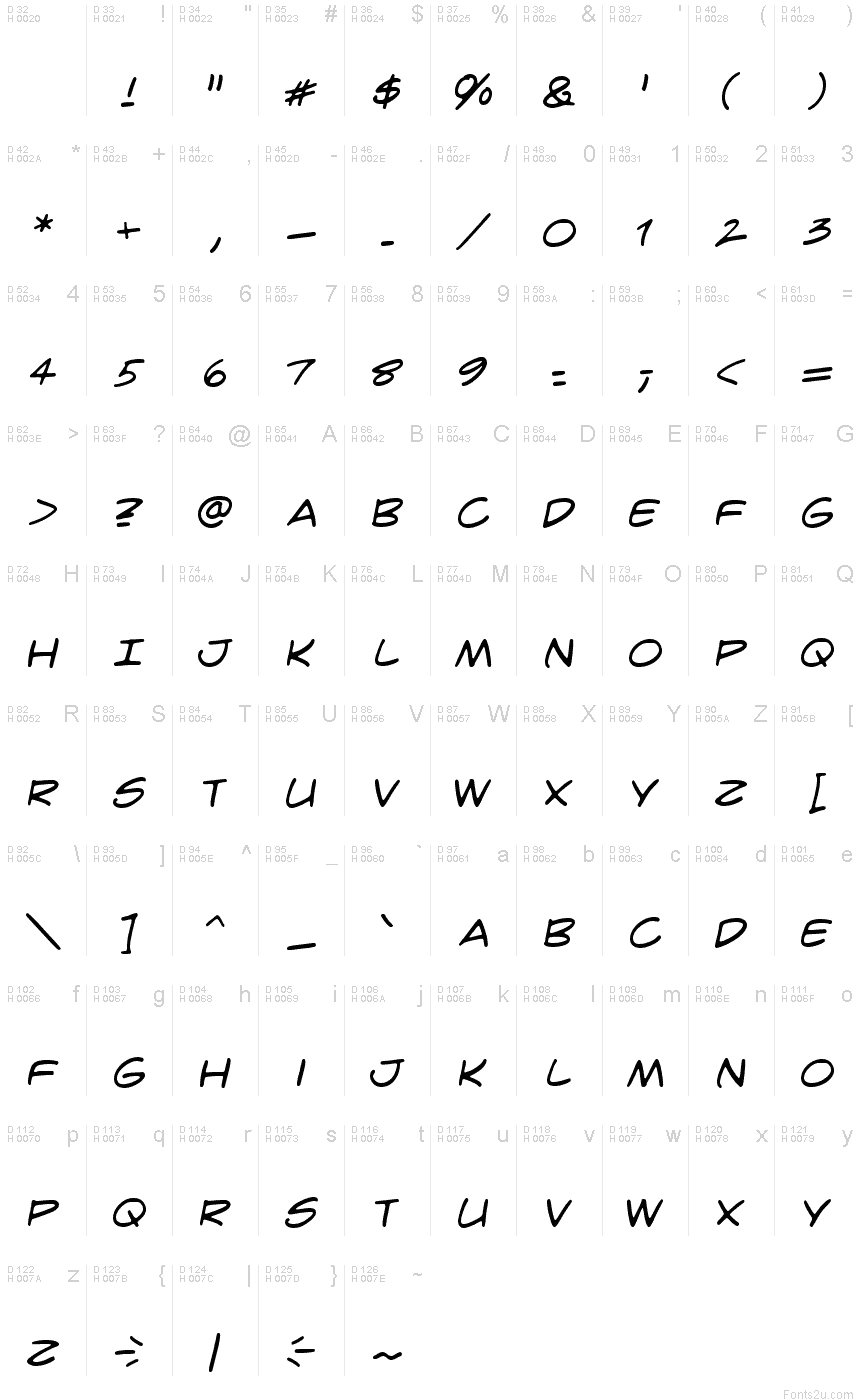
CrimeFighter BB
CrimeFighter BB font by Nate Piekos leans into that energetic, hand-lettered comic look, with tall rounded caps and a quick rightward slant. The strokes feel smooth and slightly brushy, giving headlines a sense of motion without becoming messy. This free font works well when you need something bold and friendly for comic titles, kid-focused branding, convention signage, posters, or playful logos.
CrimeFighter BB keeps letters open and evenly spaced, so text stays readable even when words stack tightly in speech balloons or callouts. This free font is a natural choice for indie comics, zines, game interfaces, YouTube thumbnails, stickers, and lighthearted social graphics. Try pairing it with a clean neutral sans serif for captions, and set it a bit larger than body text to emphasize its casual, animated rhythm.